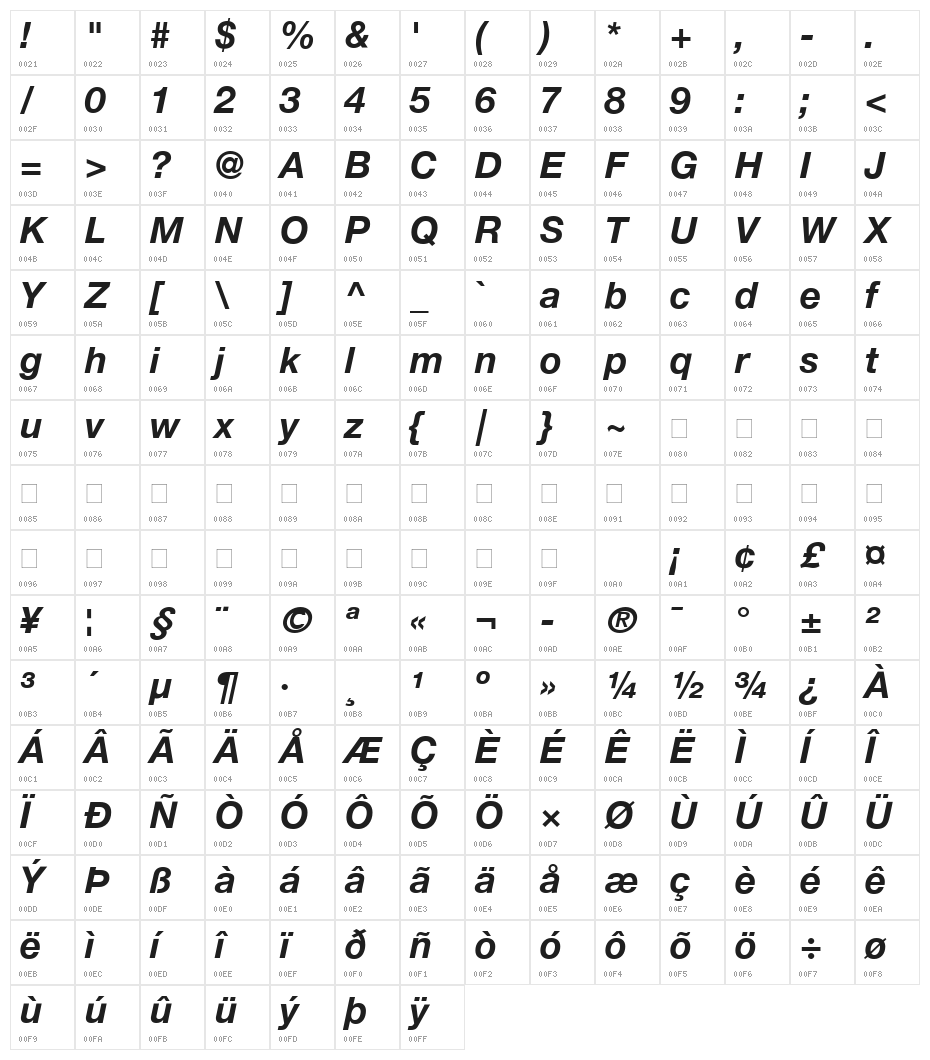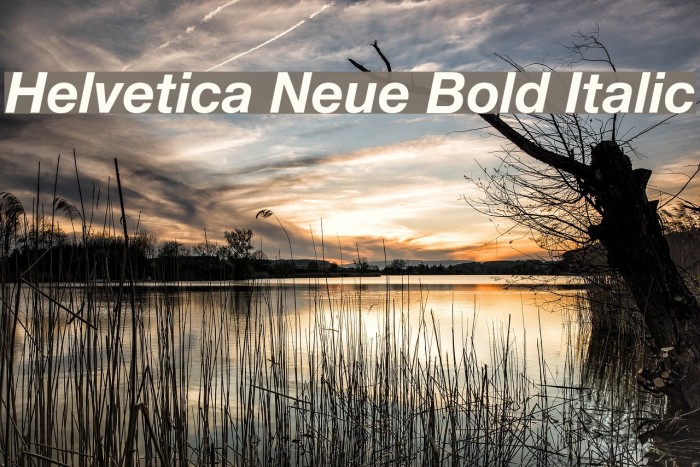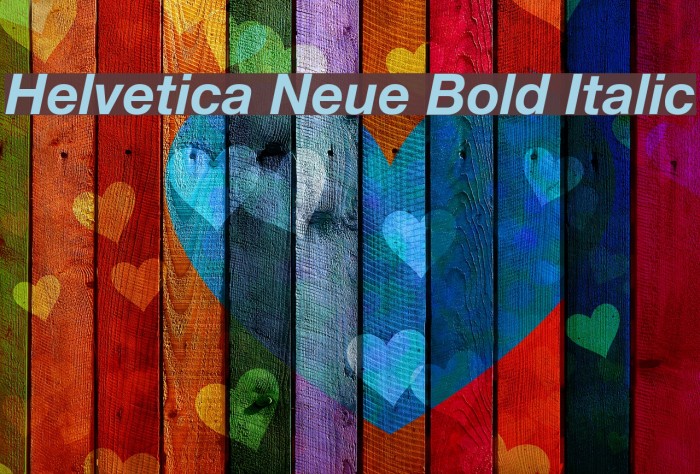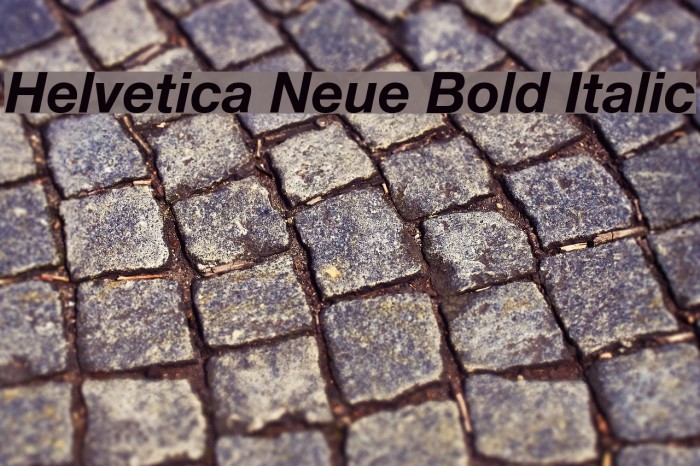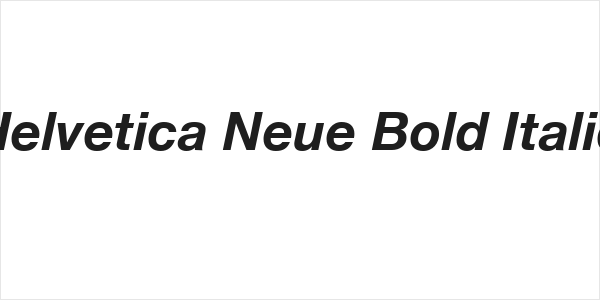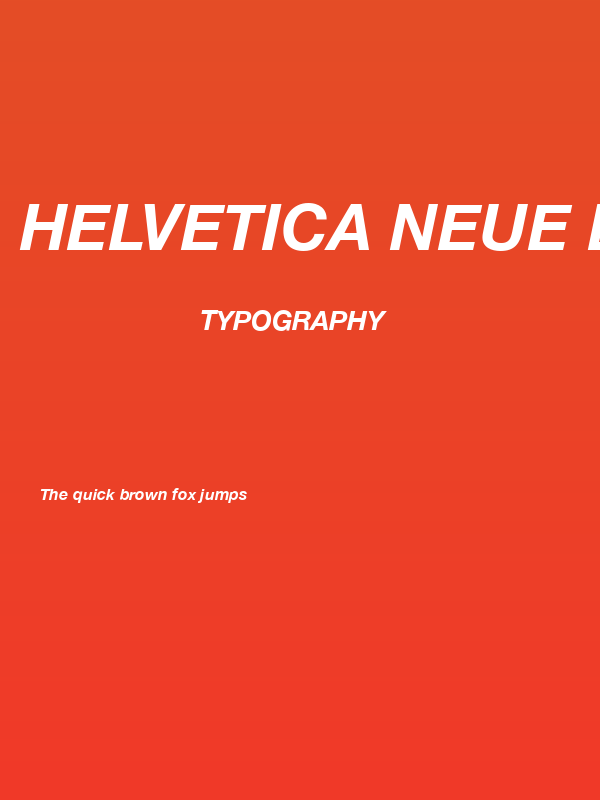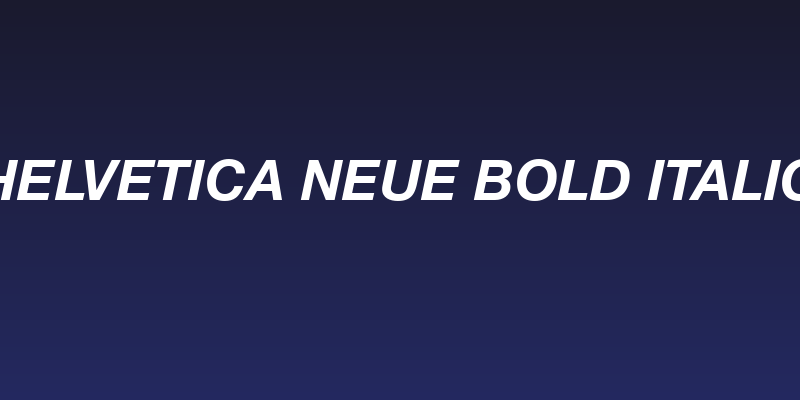
Helvetica Neue Bold Italic Font
Helvetica Neue Bold Italic Description
This font exhibits a clean and modern sans-serif style with a bold and italicized appearance. The characters are well-defined with a slight slant, providing a dynamic and forward-moving aesthetic. The uppercase and lowercase letters maintain a consistent weight, contributing to a uniform look across different text sizes. The numerals are clear and easily distinguishable, making them suitable for both display and text purposes. Special characters are well-integrated, ensuring versatility in various design contexts. The overall design is sleek and professional, ideal for conveying a contemporary and authoritative tone.